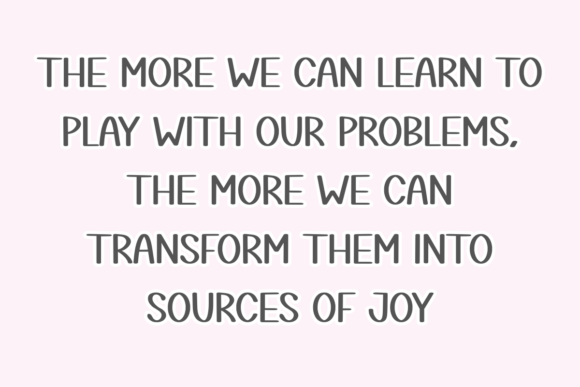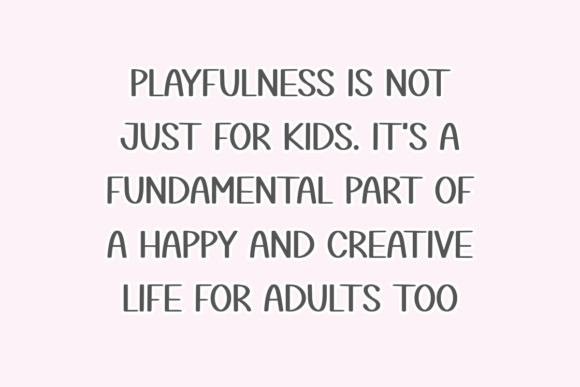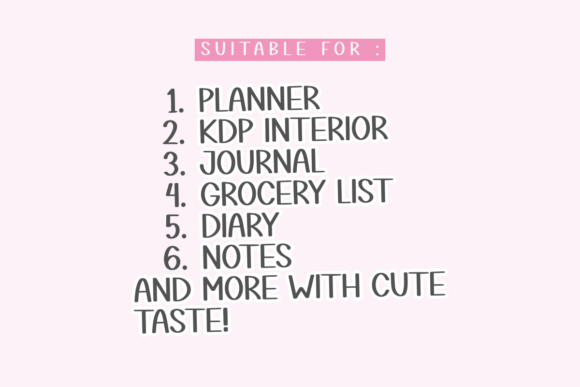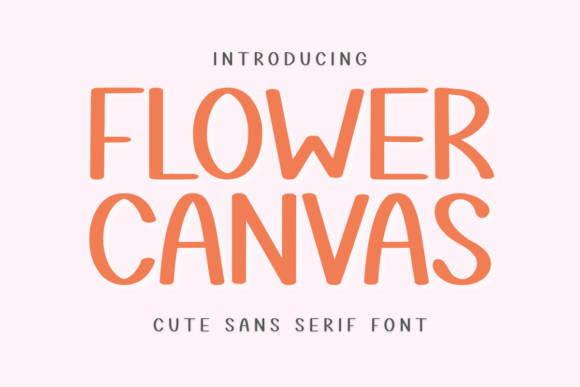
Introducing Flower Canvas Font: The Perfect Blend of Casual Elegance and Friendly Charm
In the world of typography, fonts play a crucial role in conveying the tone and personality of a design. For designers and crafters looking to add a touch of warmth and approachability to their projects, Flower Canvas Font is an excellent choice. This casual sans-serif font is designed to bring a relaxed and friendly vibe to your designs, making it perfect for a wide range of applications.
The Characteristics of Flower Canvas Font
Flower Canvas Font boasts smooth strokes, natural curves, and well-balanced letterforms that capture the essence of authentic handwriting with a modern finish. Its casual and effortless flow makes it an ideal choice for designers who want to add a personal touch to their work. The font’s friendly and approachable personality shines through in its elegant, yet relaxed, design.
What Makes Flower Canvas Font So Versatile?
One of the standout features of Flower Canvas Font is its versatility. This font is suitable for a wide range of design projects, including:
- Quotes: Add a touch of elegance and sophistication to your inspirational quotes and phrases.
- Branding: Use Flower Canvas Font to create a friendly and approachable brand identity that resonates with your target audience.
- Packaging: Elevate your product packaging with a font that exudes warmth and approachability.
- Social Media Posts: Make your social media posts stand out with a font that adds a personal touch to your content.
The Benefits of Using Flower Canvas Font
So, why choose Flower Canvas Font for your design projects? Here are just a few benefits:
- Readability: Despite its casual and relaxed design, Flower Canvas Font remains highly readable, making it perfect for body text and captions.
- Charm: The font’s elegant and friendly personality adds a touch of charm to any design, making it perfect for projects that require a personal touch.
- Effortless Flow: The font’s smooth strokes and natural curves create an effortless flow that makes it a joy to read and look at.
How to Use Flower Canvas Font in Your Designs
Using Flower Canvas Font in your designs is easy. Here are a few tips to get you started:
- Pair it with bold fonts: Combine Flower Canvas Font with bold fonts to create a striking contrast that adds visual interest to your design.
- Experiment with colors: Try out different colors and gradients to add depth and dimension to your design.
- Play with layout: Don’t be afraid to experiment with different layouts and compositions to create a unique and eye-catching design.
Flower Canvas Font is a versatile and charming font that is perfect for designers and crafters looking to add a touch of warmth and approachability to their projects. With its smooth strokes, natural curves, and well-balanced letterforms, this font is sure to capture the essence of authentic handwriting with a modern finish. Whether you’re working on a quote, branding project, packaging design, or social media post, Flower Canvas Font is an excellent choice.